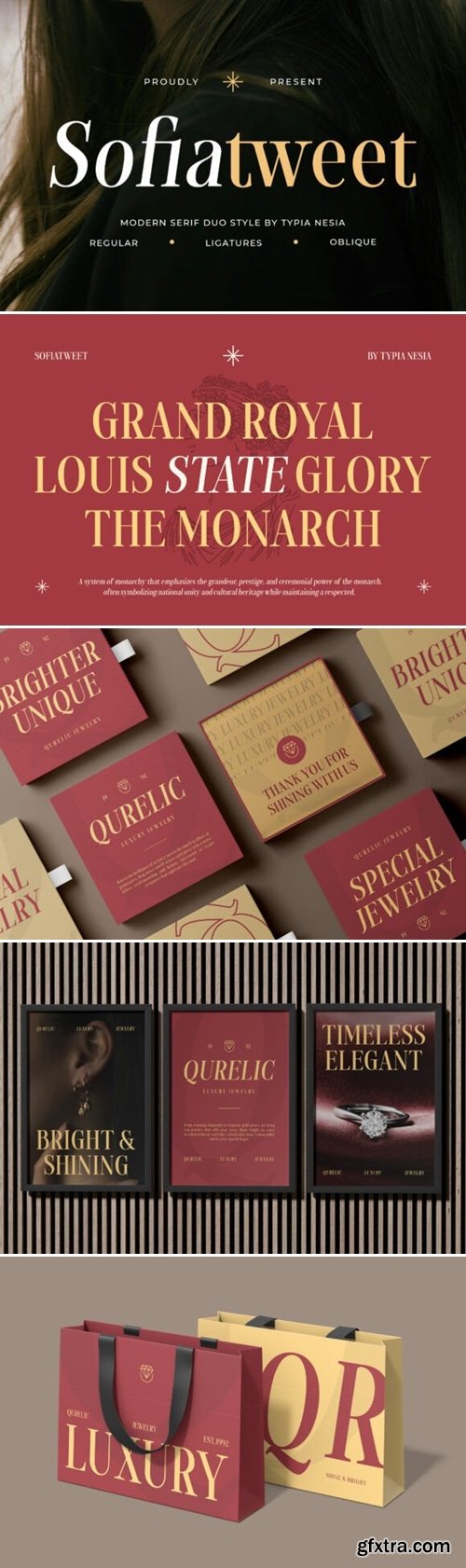
Sofiatweet, a Modern Elegant Luxury Serif, featuring both regular and oblique styles, this typeface is designed to add a touch of class and beauty elegant to your projects. Its graceful letterforms and stylish contrast make it a perfect choice for high-end designs. Such as branding, fashion editorials, wedding invitations, luxury packaging, elegant headlines, social media graphics, logos, magazines, beauty product designs, advertising, and anymore. Comes with uppercase and lowercase letters, punctuation, numerals, ligatures, and alternates, providing endless possibilities for creative typography. With multilingual support, Sofiatweet ensures your designs are accessible worldwide. Designed for those who appreciate beauty and luxury, Sofiatweet brings an elegant, modern, and high-fashion appeal to any project. Whether you're crafting a brand identity or a stylish editorial layout, this font ensures timeless elegance and premium quality.